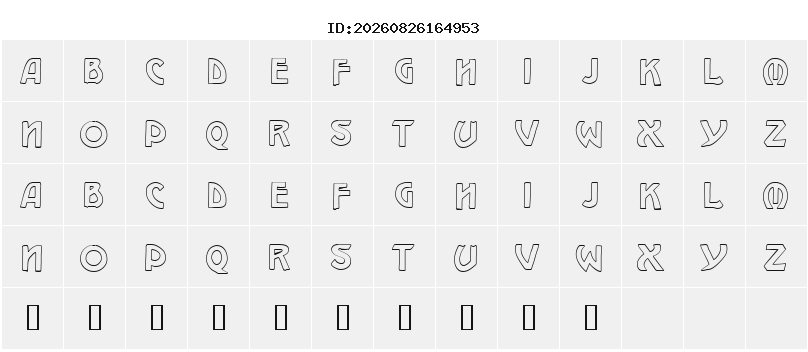
W.J. Pearce hollow Preview
• Font Name: W.J. Pearce hollow
• Font ID: W.J. Pearce 213
• Full Font Name: W.J. Pearce hollow
About W.J. Pearce hollow.ttf
W.J. Pearce hollow.ttf is a modern, elegant sans-serif font designed for ultimate readability and visual harmony. Perfect for branding, headlines, web design, and print materials.